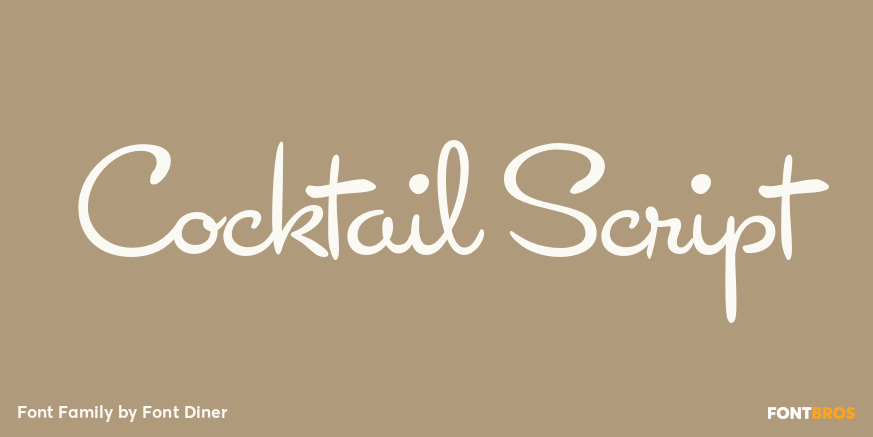
HomeFont BrosArt Deco (1910-1935)Cocktail Script Art Deco (1910-1935)Scripts: CasualScripts: FormalRetro (1936-1965) Cocktail Script FacebookXPinterestWhatsApp 1 of 1 About Cocktail Script Elegance has a new name, Cocktail Script! This vintage handwritten pen script is certain to add a sophisticated flavor to any design  DOWNLOAD NOW People also explored Banja Black Spores Font Dublin Font Baby Signature Font Funtens Afattaya Font Dugguen Font Valentine Akin Font Hello Font 375 0 TagsCocktail Script Font Previous articleCholleo DisplayNext articleNewshound LEAVE A REPLY Cancel reply Comment: Please enter your comment! Name:* Please enter your name here Email:* You have entered an incorrect email address! Please enter your email address here Website: Save my name, email, and website in this browser for the next time I comment. Personal Use Free Bridgetown Font Personal Use Free Read more about this font Gratisan Personal Use Free Read more about this font Vexler Slip Personal Use Free Read more about this font Beattingvile Personal Use Free Read more about this font BLOG Using Fonts in Digital Marketing: Tips to Strengthen Your Brand Identity In the realm of digital marketing, every visual element plays a crucial role in shaping a brand's identity, and fonts are no exception. The... To increase your work productivity, choose the most readable fonts. How to Install and Use Fonts on Windows, macOS, and Web Projects The 10 Best Handwriting Fonts to Add Personality to Your Designs